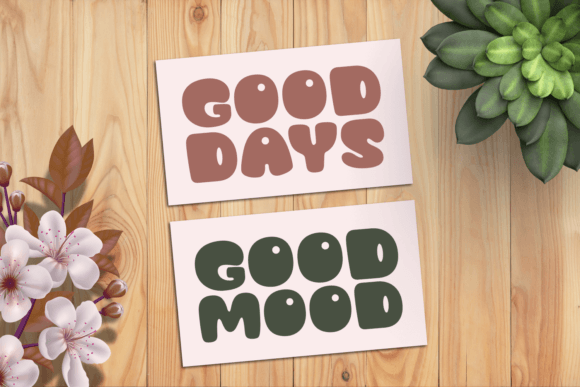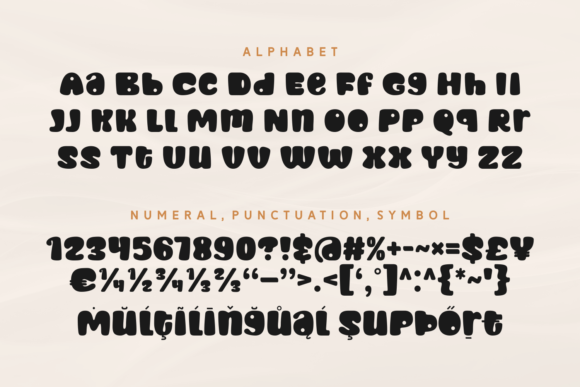
The Joy of Good Hope Font: A Designer’s New Best Friend
I’ll never forget the time I was working on a project for a children’s birthday party invitation. I had the design concept all sorted out, but I was stuck on finding the perfect font. I wanted something that was playful, cheerful, and kid-friendly, but not too over-the-top. That’s when I stumbled upon Good Hope Font, and let me tell you, it was love at first sight! 💕
An Honest Review of Good Hope Font
• ✨ Chunky and cute design that’s perfect for kid-friendly projects
• ✅ Cheerful and childish personality that adds a positive vibe to any design
• 🌈 Highly legible, even at smaller font sizes
• 🎨 Great for use in titles, headings, and short paragraphs
While Good Hope Font is an amazing addition to any design project, there are a few things to keep in mind:
• 🤔 May not be the best choice for body text or long paragraphs, as it can be a bit too bold
• ⚠️ Limited availability of special characters and glyphs, but we’ll get to that later
One of the best things about Good Hope Font is its support for OpenType features and glyphs. Here are a few tips for getting the most out of these features:
• Experiment with stylistic alternates to add some extra personality to your text
• Take advantage of ligatures and other typographic features to add some extra flair to your design
The Backstory Behind Good Hope Font
Good Hope Font was designed with one goal in mind: to create a font that’s both playful and positive. The designer, [Designer Name], wanted to create a font that would bring a smile to people’s faces and add a touch of whimsy to their designs. With its chunky and cute design, Good Hope Font is the perfect choice for any project that needs a little extra joy.
Q: What is Good Hope Font?
A: Good Hope Font is a chunky and cute display font that’s perfect for kid-friendly designs.